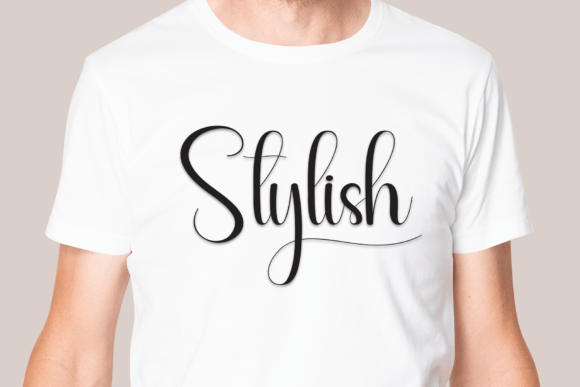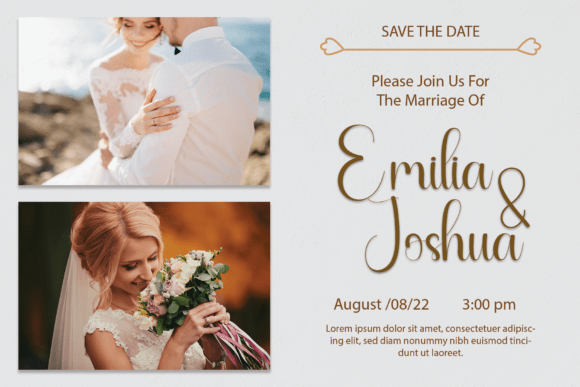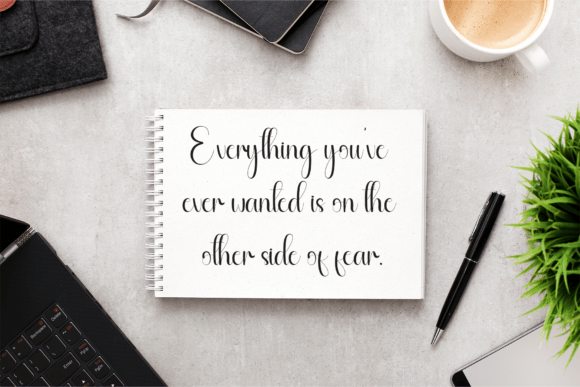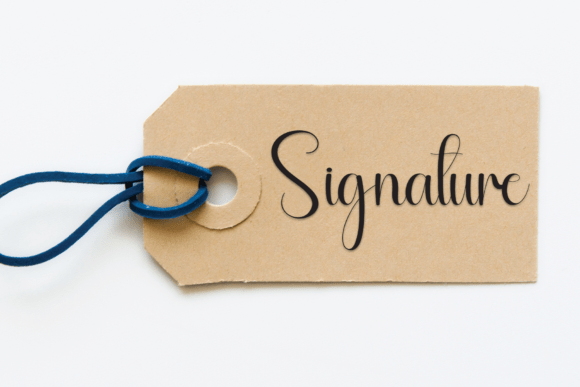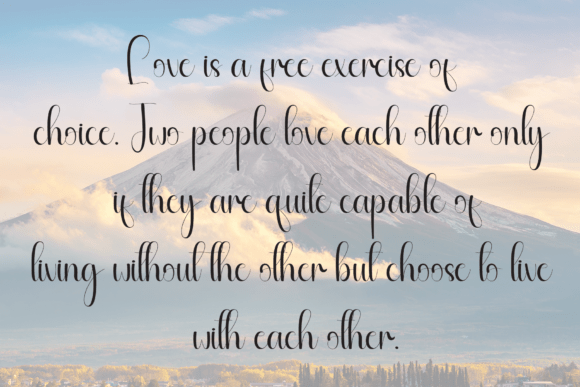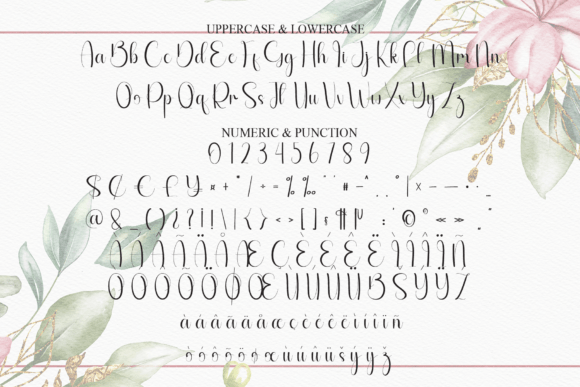
The Elusive Font: A Designer’s Journey to Discovering Angista
I still remember the countless hours I spent searching for the perfect font for a client’s wedding invitation project. The design brief called for something elegant, yet modern; sophisticated, yet playful. I scrolled through font after font, but nothing seemed to fit the bill. That was until I stumbled upon Angista, a stylish handwritten script font that radiates elegance and fluidity.
As I experimented with Angista, I knew I had found the one. Its smooth, flowing strokes created a natural and sophisticated feel, perfect for branding, invitations, and creative projects. With a graceful balance of charm and modernity, this typeface adds a personal, artistic touch to any design.
What I Love About Angista ✨
• 💫 Elegant and fluid strokes that create a sophisticated feel
• 🎨 Versatile and suitable for various design projects, from branding to invitations
• 🤩 Beautifully crafted with attention to detail, making it a joy to work with
• ⚠️ Some users may find the font a bit too ornate for very casual or playful projects
• ⚠️ Limited availability of certain characters or glyphs, which may require additional design workarounds
The Story Behind Angista: Designer Inspiration
Angista was crafted with love and care by a talented type designer who sought to create a font that embodies the perfect balance of elegance and playfulness. Inspired by the flowing strokes of handwritten calligraphy, Angista is a testament to the beauty of human creativity and the art of typography.
A: Angista’s elegant and sophisticated feel makes it an excellent choice for branding projects, as it can help establish a professional and artistic image.
A: Currently, Angista is available in a single font weight. However, the designer may release additional weights or styles in the future.
A: Absolutely! Angista is perfect for personal projects, such as party invitations, wedding stationery, or social media graphics.